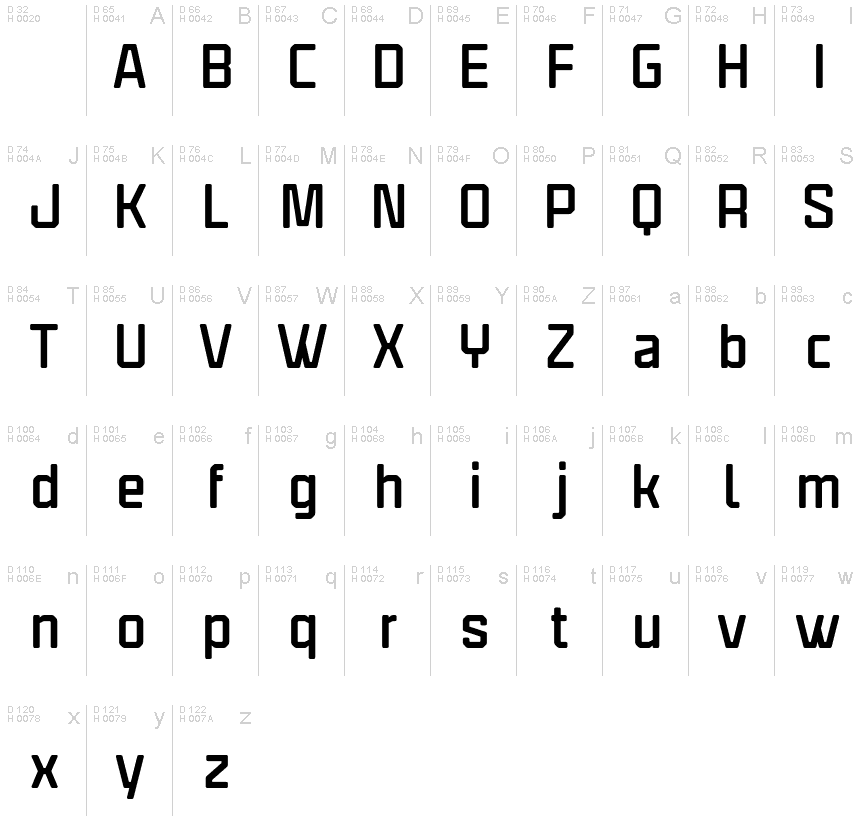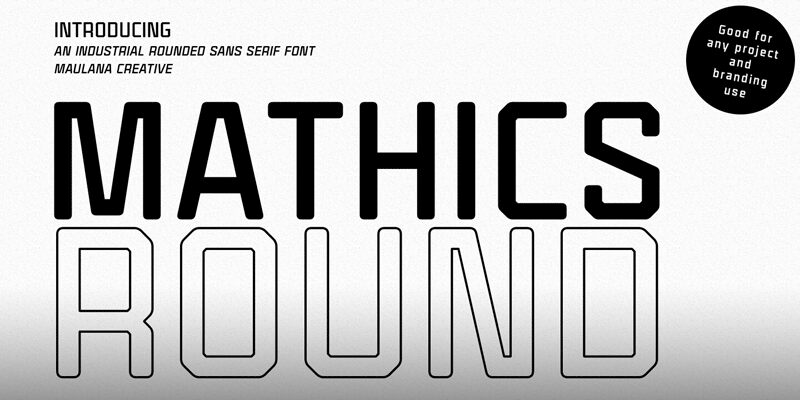
Mathics Free Bold
Mathics Bold is a display typeface designed by Maulana Creative. With its techno style, Mathics Bold is perfect for modern graphic design projects. From packaging to posters, title cards to titles, this font adds a bold and futuristic touch to any project. Its sharp edges and distinct lines make it ideal for creating eye-catching visuals for both digital and print media. Unleash your creativity with this unique typeface!